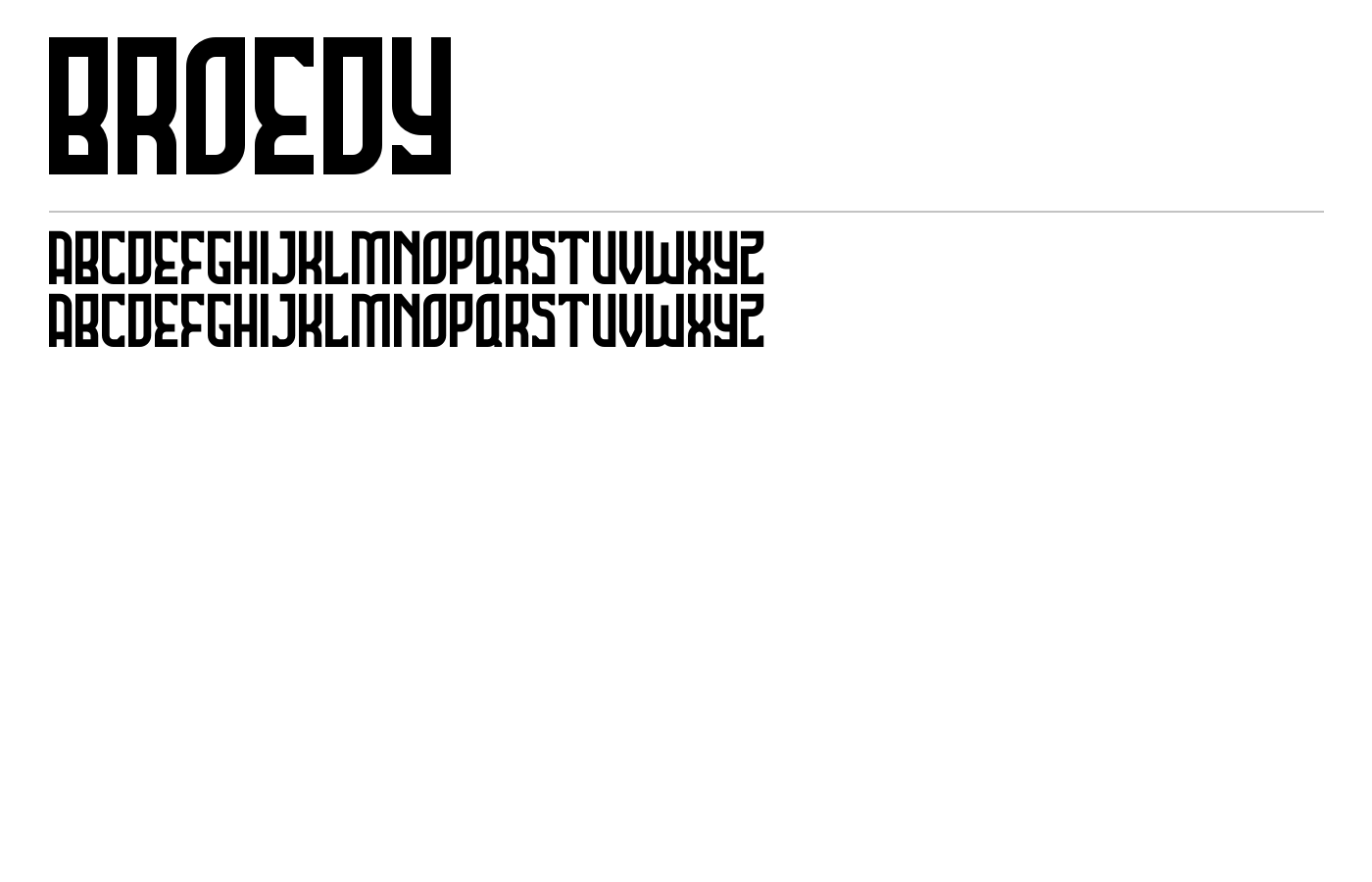
Broedy is a bold, condensed sans-serif font with a modern and geometric style, featuring sharp, angular edges and strong vertical lines that create a striking, industrial look. Its high contrast between thick and thin strokes and unique letterform shapes make it ideal for eye-catching headlines, logos, and branding where a contemporary, assertive personality is desired. This font works well for projects that need to convey strength and modernity, such as tech or urban lifestyles.
Broedy Font
About Broedy Font
| Font family | Broedy Font |
| Designer | Rudi Syam |